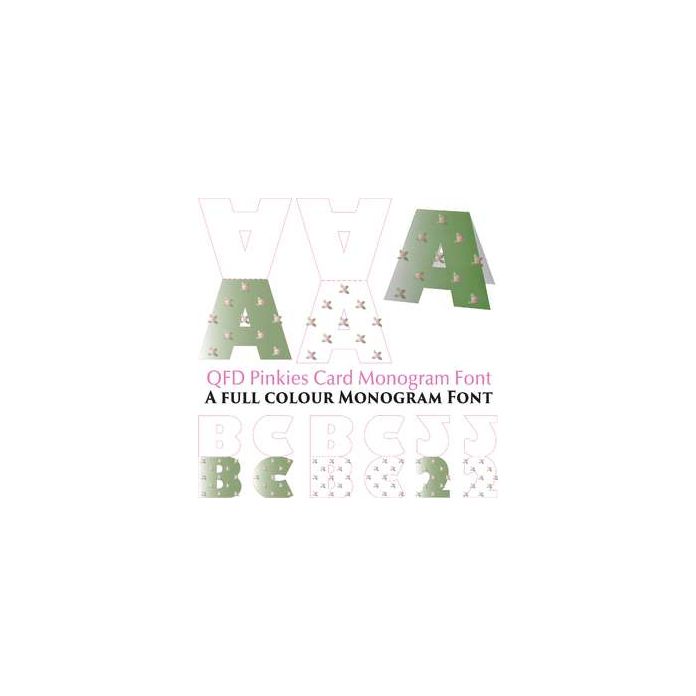
This delicate font is two card sets in one font! Upper case letters have the green background and the lower case letters have a white background. To access the white background numbers, press Shift and choose the number. To create your card, just choose the letter, choose the font and print and cut the card! So easy, you’ll love it!